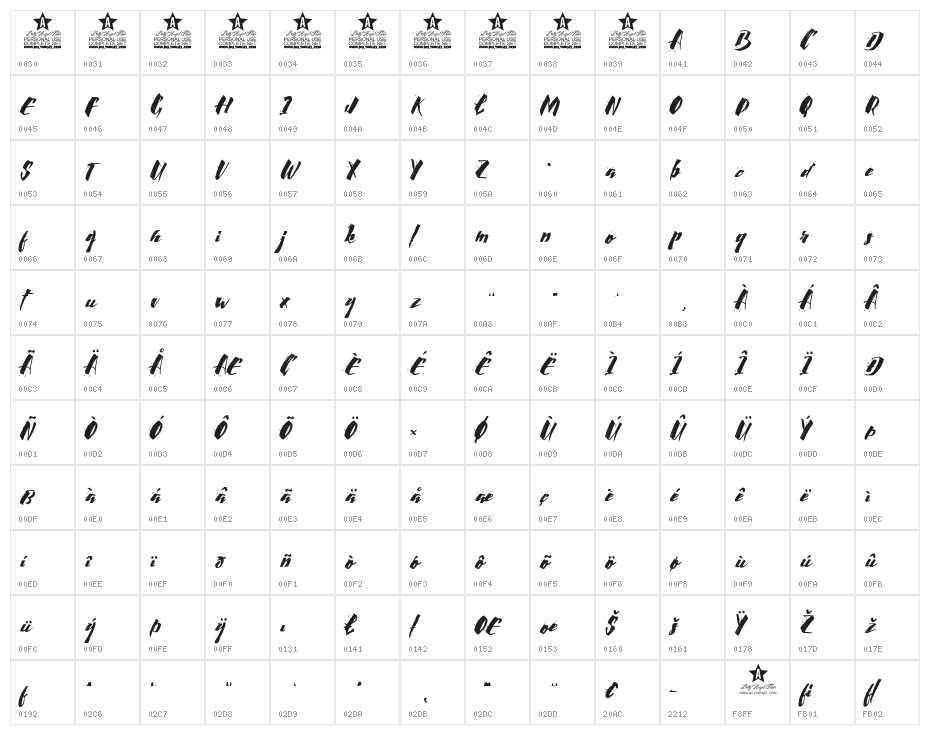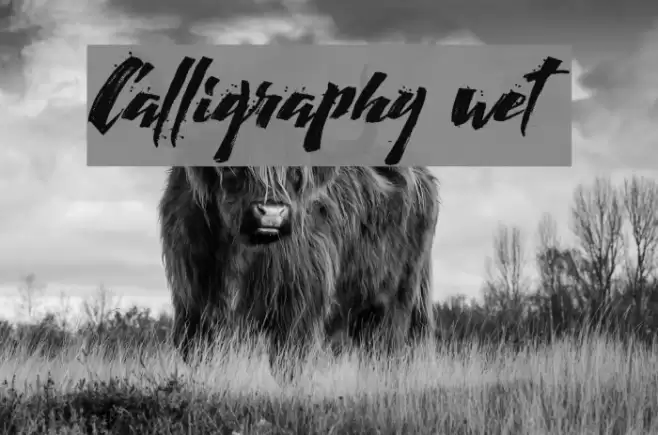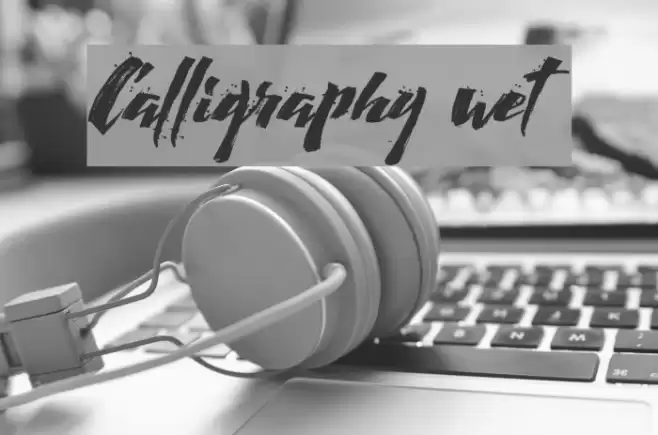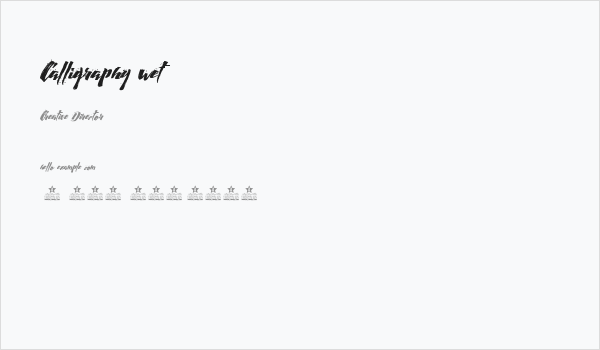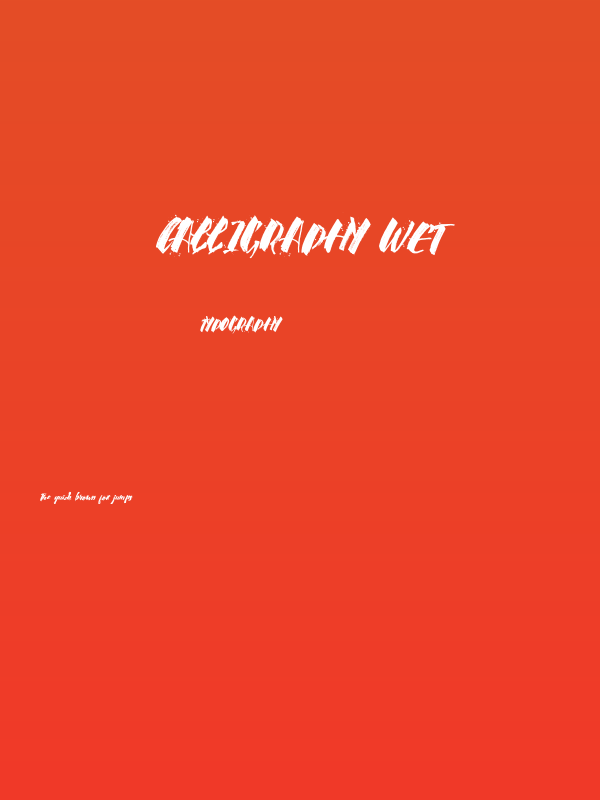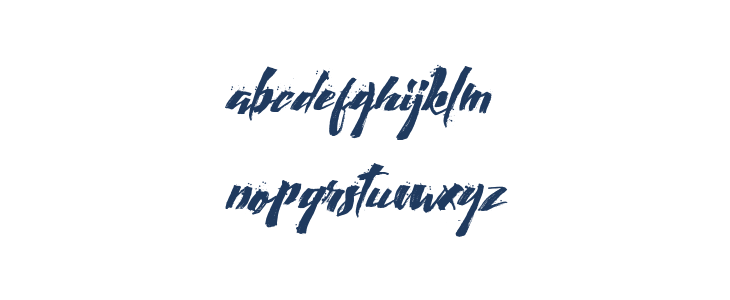
Calligraphy wet Font
Calligraphy wet Description
This font exhibits a dynamic and expressive style, characterized by its bold, brush-like strokes that mimic the fluidity of wet ink. The letters are crafted with a sense of movement and energy, giving the impression of hand-drawn calligraphy. The uppercase and lowercase letters maintain a consistent style, with varying stroke widths that add a sense of depth and texture. The font includes numerals and a selection of special characters, all designed to complement the overall aesthetic. The irregular edges and splatter effects enhance its artistic and spontaneous feel, making it ideal for creative projects.
| Proposed Projects | Ideal for artistic projects, branding, posters, invitations, and any design requiring a creative, hand-crafted look. |